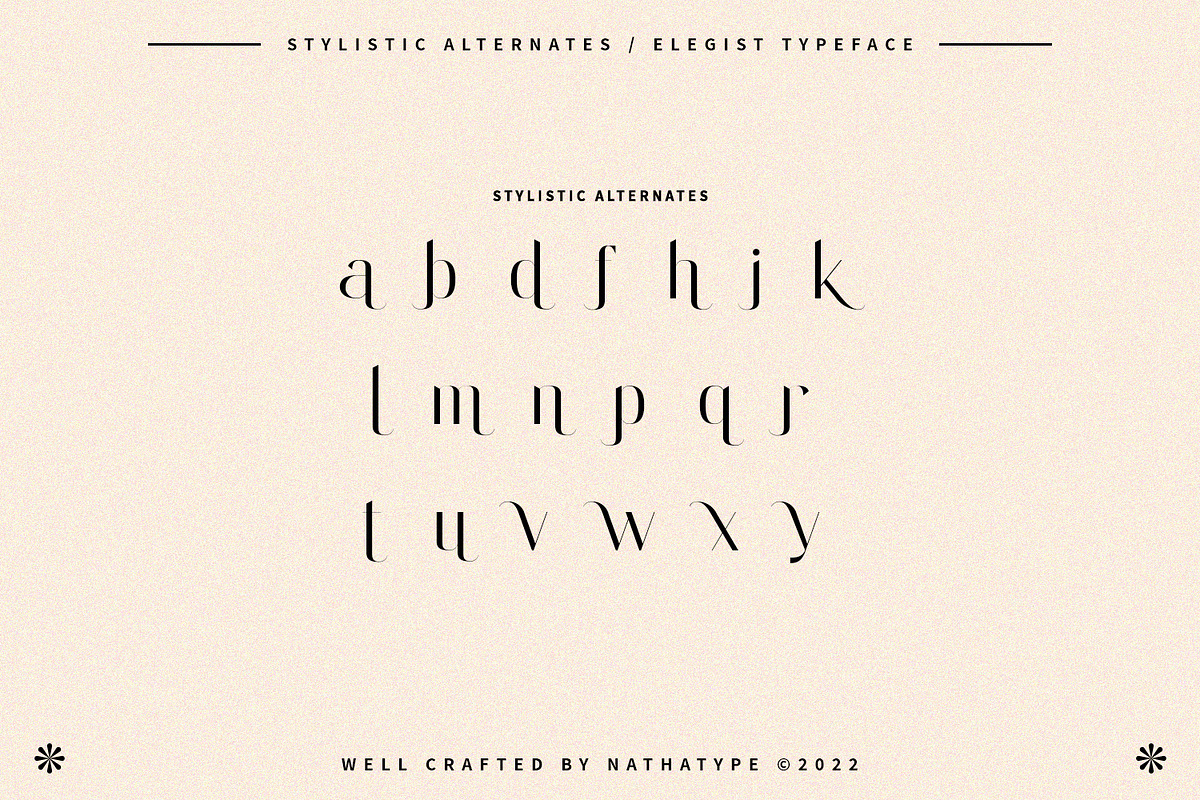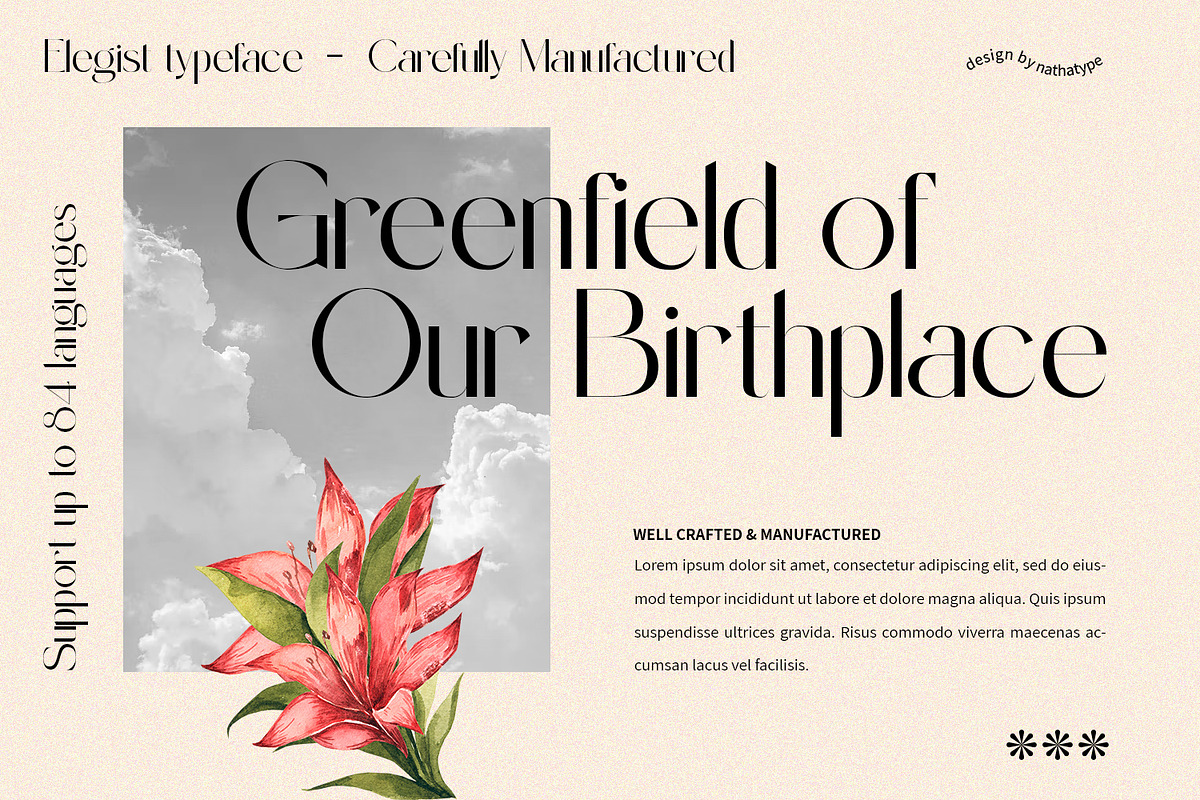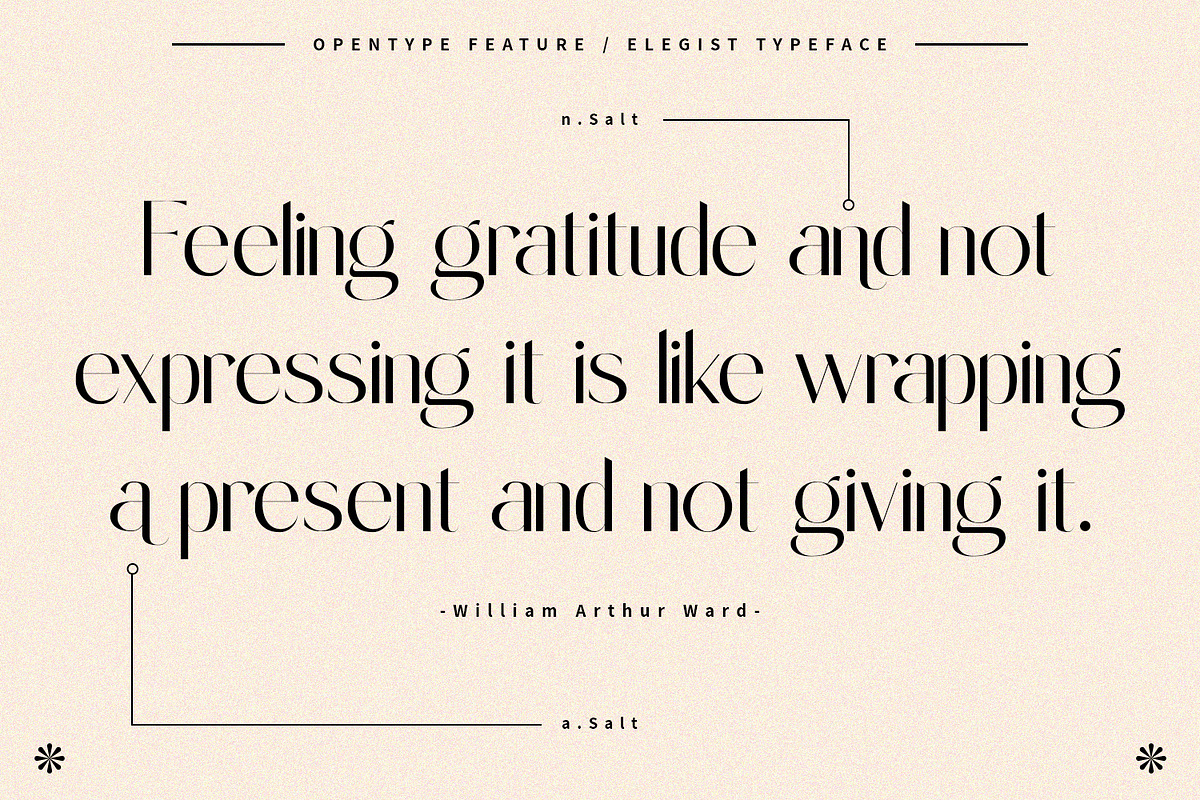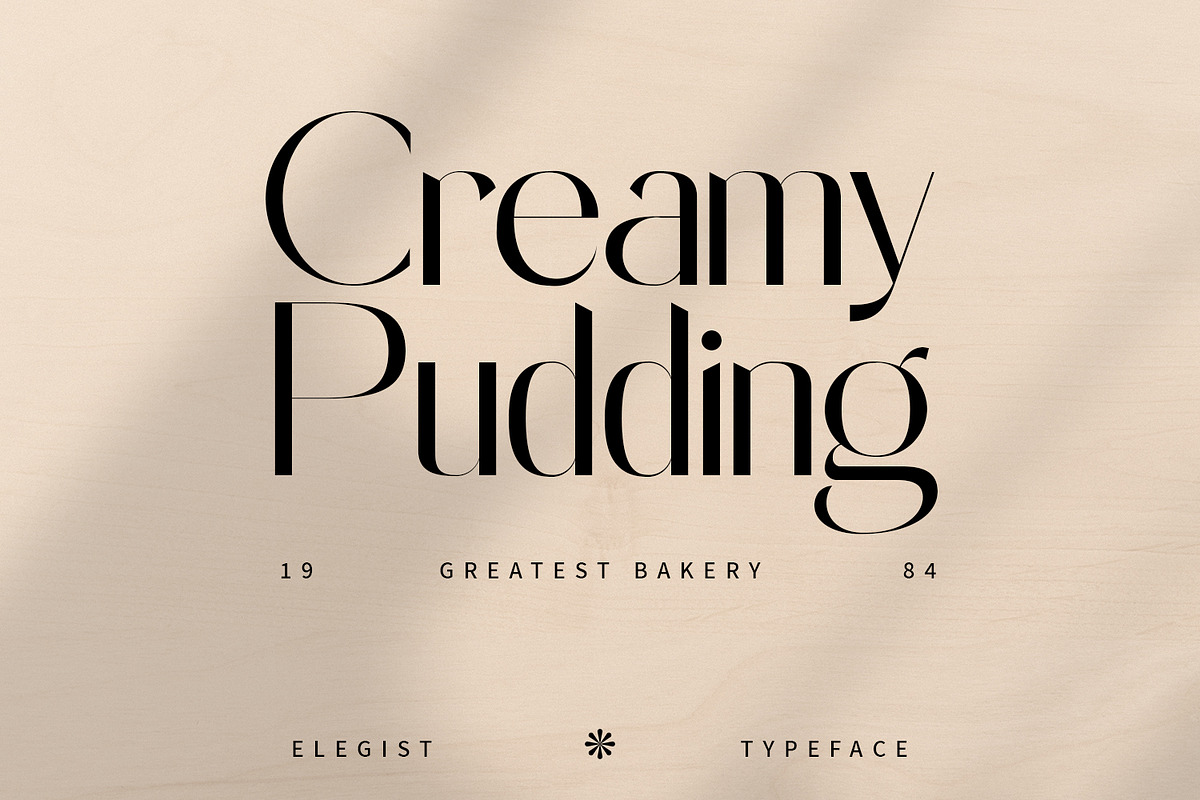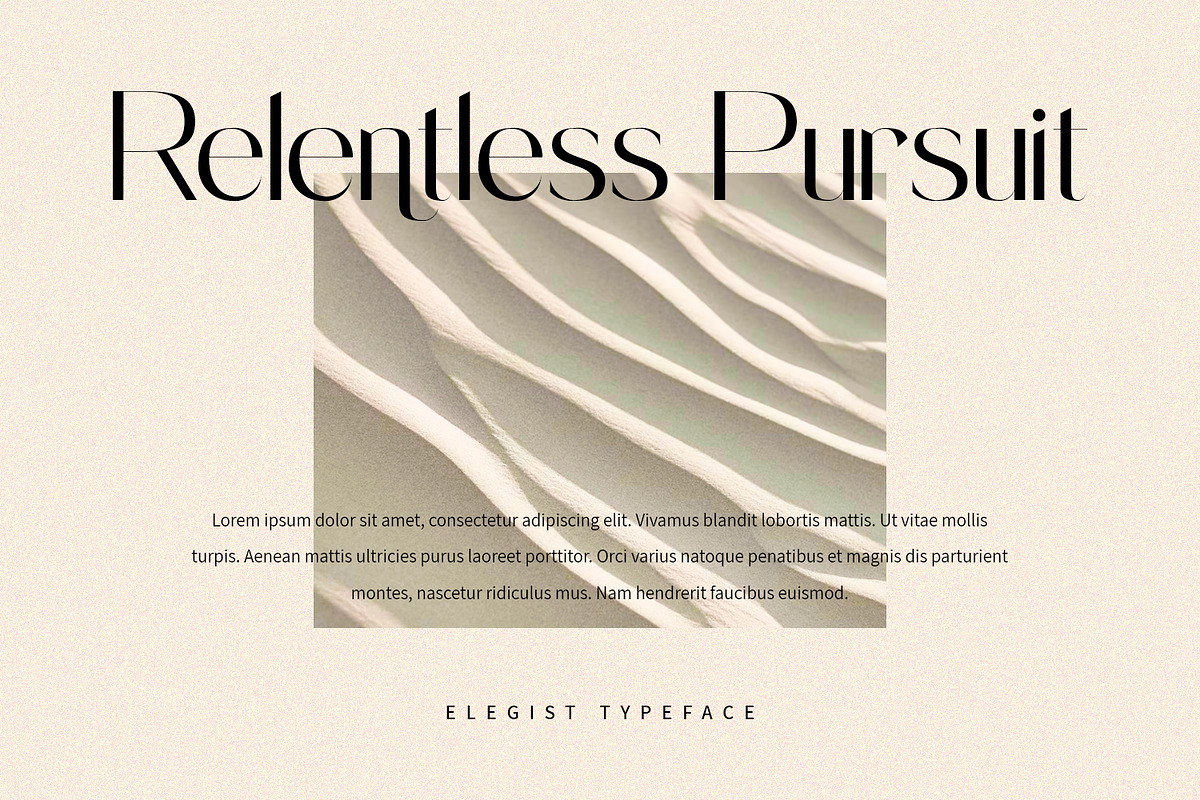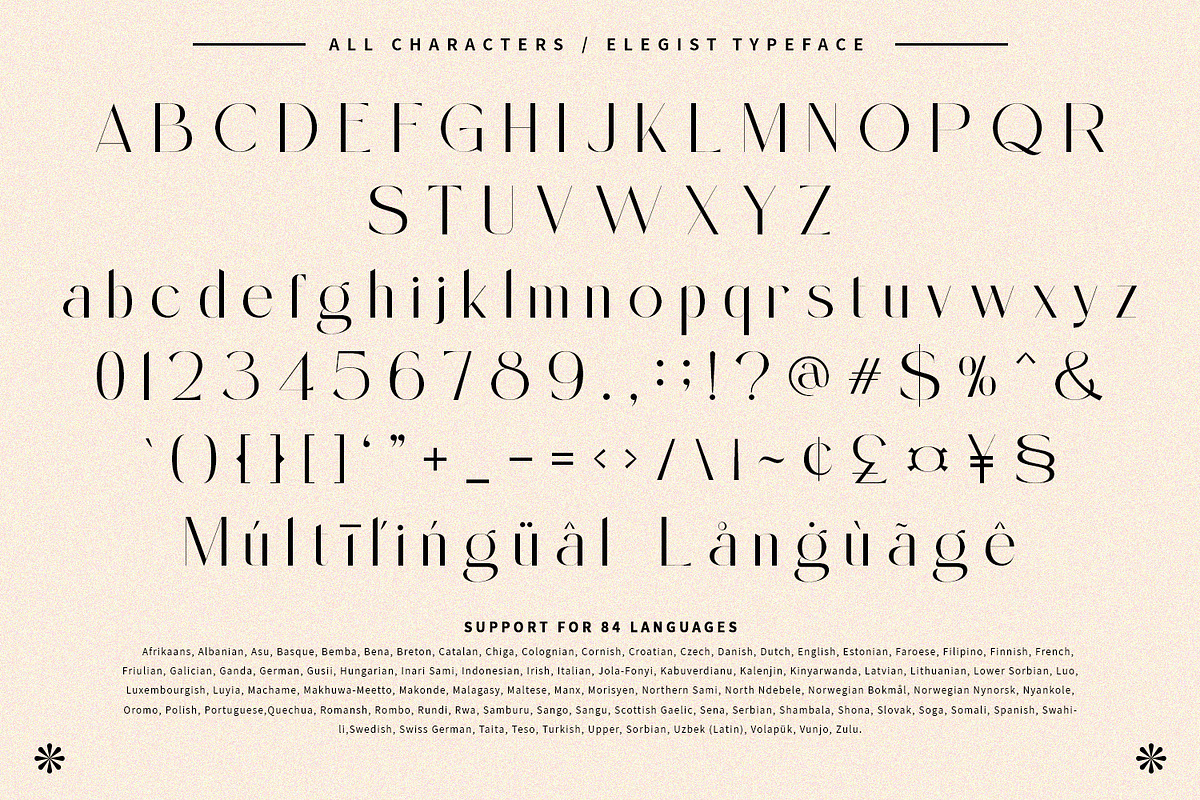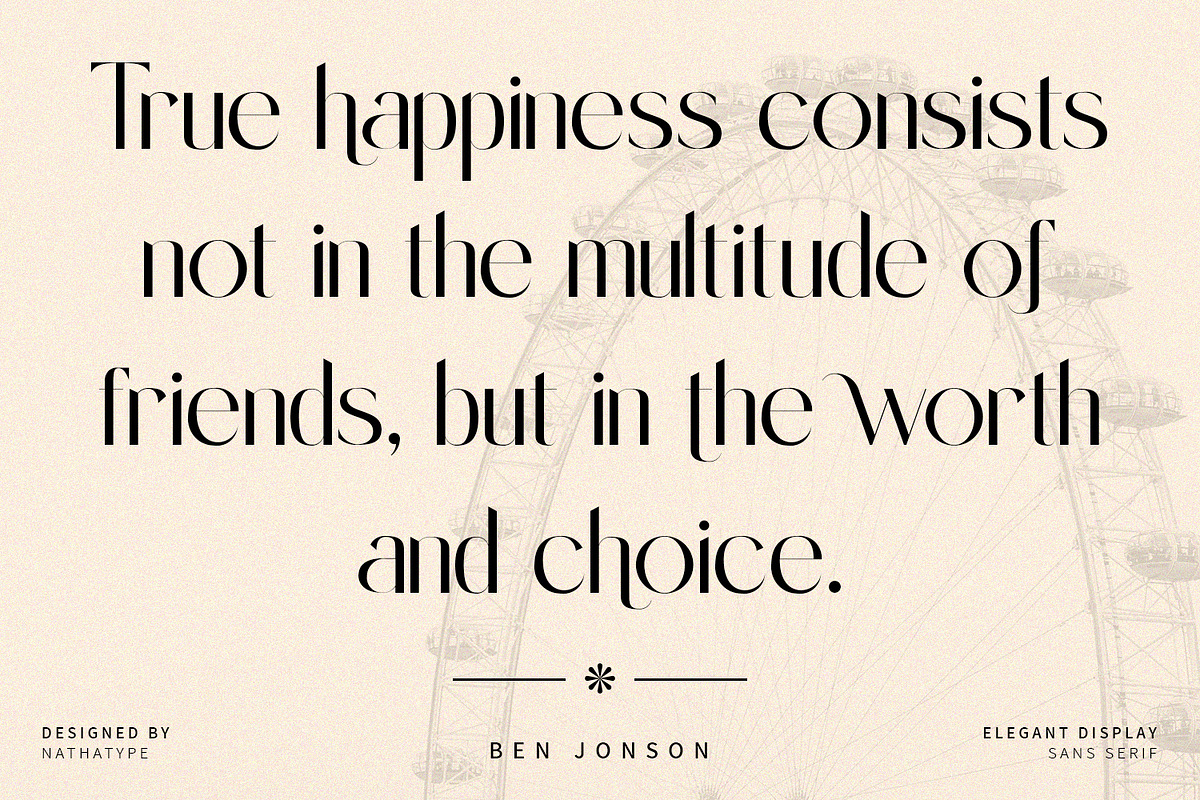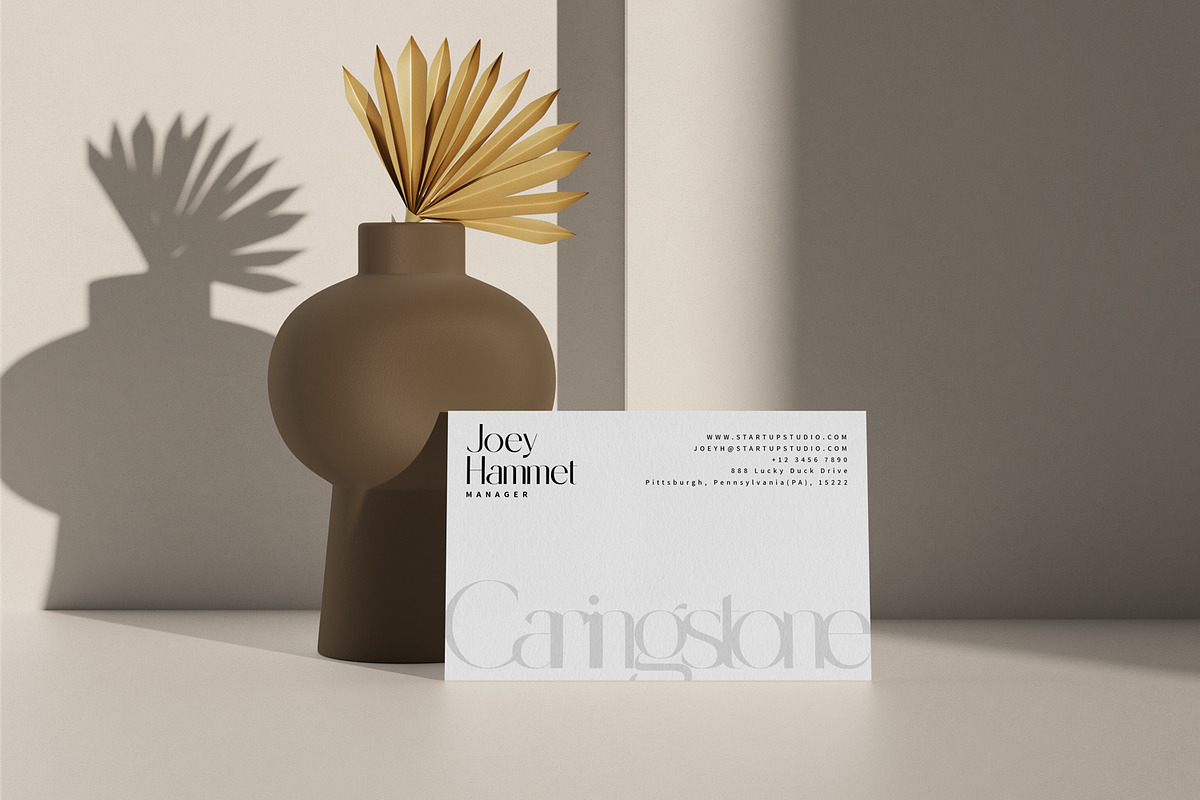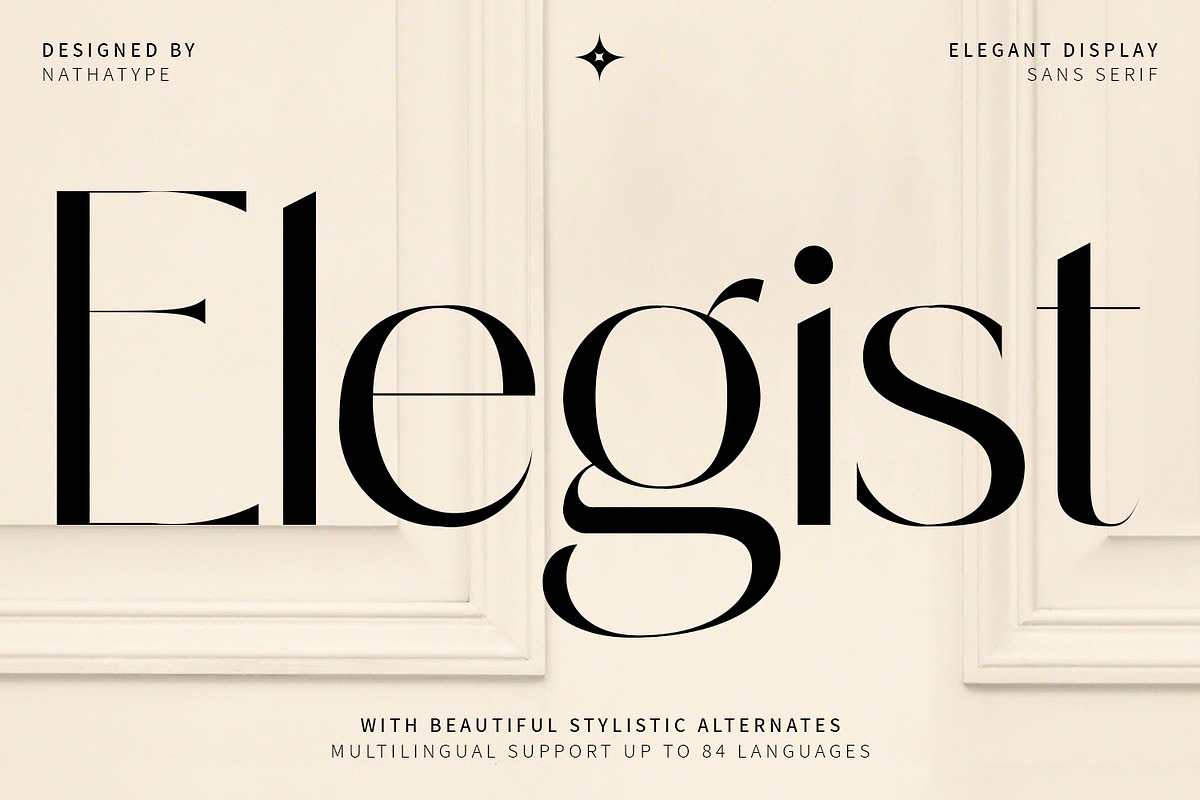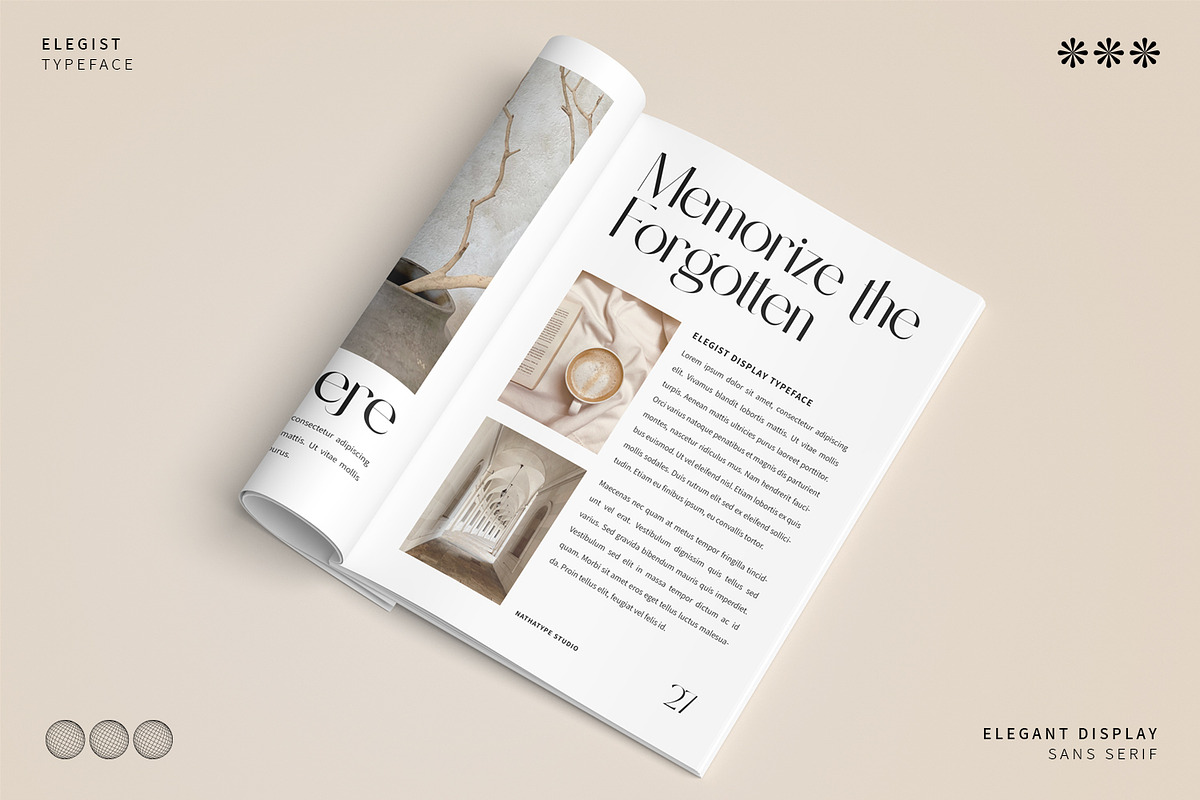
Elegist
It’s the ultimate way to be you. Elegist is a sans serif font that match your every design projects. Through this font, it creates simple, clean yet versatile looks. It is also cleanly designed font that’s easy to read and will look great in a variety of sizes.
- Lower and uppercases